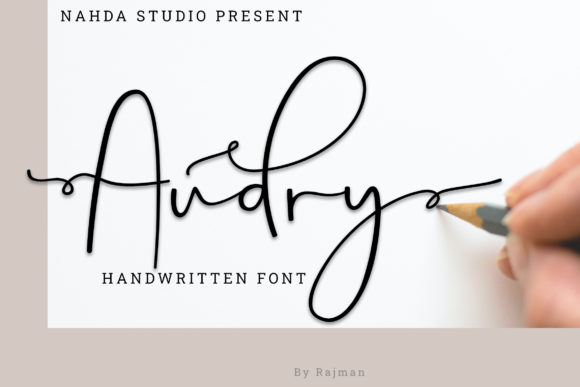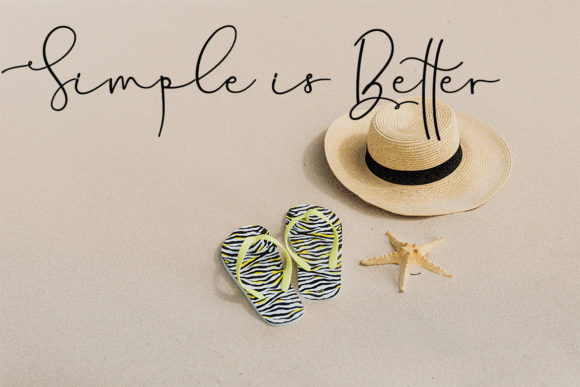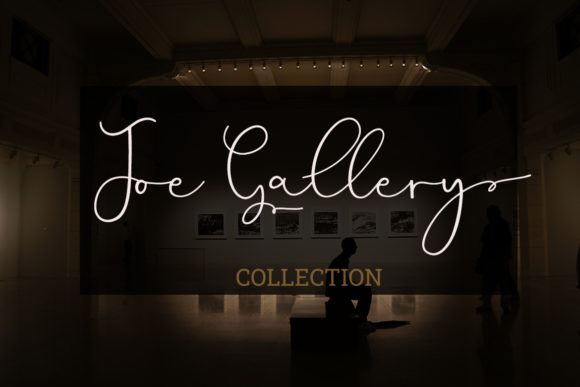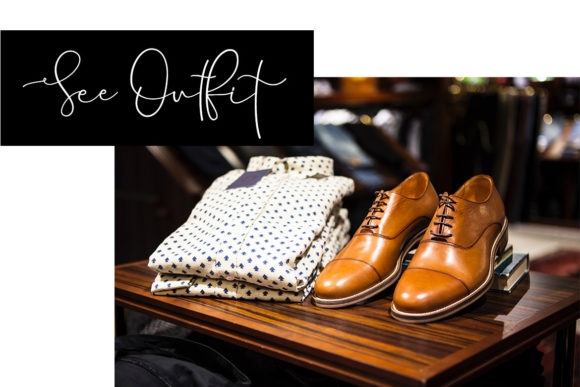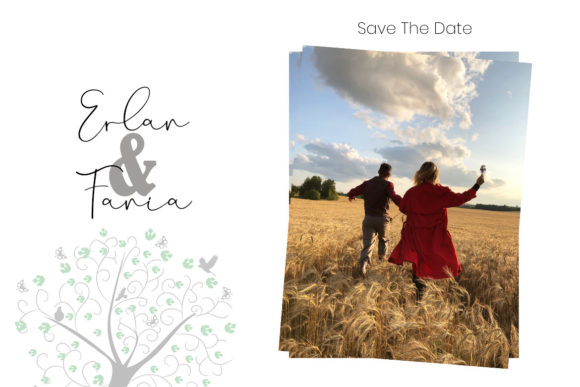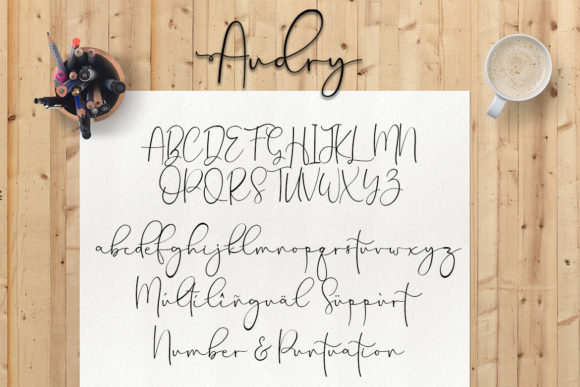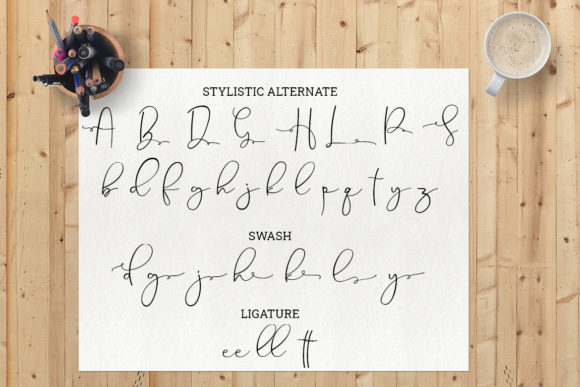
Audry Font
About Audry Font
Audry is a beautiful and natural handwritten font. It has a classy, elegant, and modern look that can be used for logos, branding, invitations, stationery, wedding designs, social media posts, and much more! This font is PUA encoded which means you can access all of the beautiful glyphs and swashes with ease!